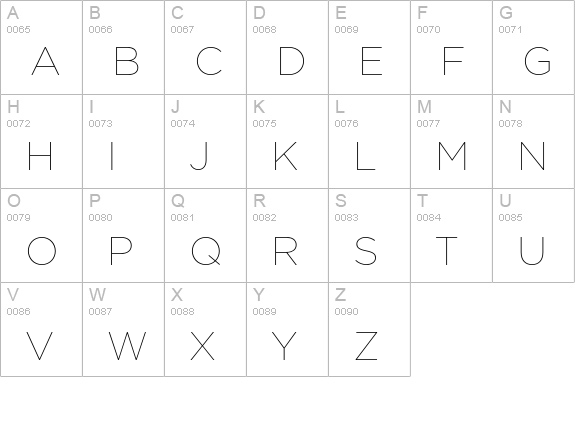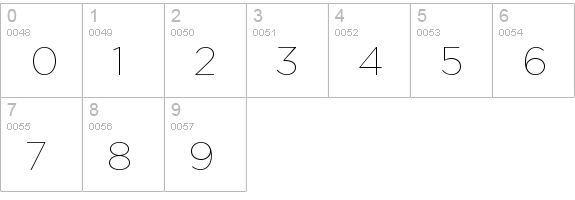
GothamThin Font Details
GothamThin is a stunning and elegant font that exudes sophistication and modernity. Its slender and sleek design makes it perfect for creating a sleek and contemporary look in any project. With its clean lines and minimalistic style, GothamThin is ideal for a wide range of design applications, from branding to editorial design. What sets GothamThin apart is not just its visual appeal, but also the fact that it is available for free download at FontsMarket.com. This means that you can easily access this high-quality font without any cost, making it a valuable asset for any designer or creative professional looking to elevate their projects with a touch of elegance and style. Whether you're working on a website, a poster, a logo, or any other design project, GothamThin is sure to make a statement and leave a lasting impression. Download this exquisite font for free today and take your designs to the next level with GothamThin from FontsMarket.com.